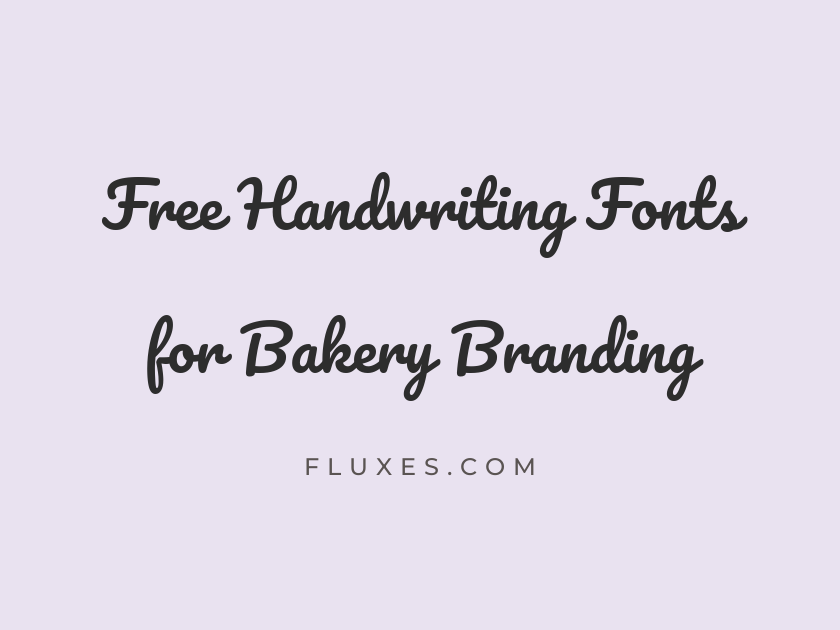
65 Best Free Handwriting Fonts for Bakery Branding
Handwriting fonts are the backbone of bakery branding because they carry the warmth of something made by hand, the same warmth you want a customer to feel before they even taste a croissant. A good script or marker-style typeface can turn a simple logo into something that feels like it was written on a chalkboard by the baker herself, and a well-chosen handwritten face on packaging, menus, or a shop sign signals fresh, small-batch, and personal rather than mass-produced. The options below cover everything from elegant calligraphy suited to a patisserie window to loose, playful lettering perfect for a doughnut shop, and every one of them is free to download on Google Fonts.
1. Pacifico
Pacifico is the font most people picture when they think “bakery logo,” and for good reason: its round, bouncy curves feel friendly without tipping into childish. It reads beautifully at large sizes on a storefront sign, though it can blur at very small text, so save it for headlines and logotypes rather than ingredient lists.
2. Sacramento
Thin, looping, and unmistakably feminine, Sacramento suits a patisserie or cupcake shop that wants an air of refinement rather than rustic charm. Its light strokes photograph well on pale pink packaging and gold foil labels.
3. Dancing Script
Few free scripts pair as easily with a sans-serif body font as Dancing Script does, which is why it shows up constantly on menus and cake boxes. The bold weight adds enough presence for a logo lockup, while the regular weight stays graceful in a tagline underneath it.
4. Great Vibes
This single-weight calligraphic script leans formal and romantic, making it a natural fit for a bakery that specializes in wedding cakes or bespoke celebration desserts. Keep it for short phrases only, since its connected flourishes get hard to read in long sentences.
5. Alex Brush
Alex Brush has the confident, slightly uneven quality of real brush calligraphy, as if someone signed the bakery name with a wet brush in one motion. It works especially well in gold or dark brown ink against a cream background.
6. Allura
Allura is tighter and more upright than most brush scripts, giving it a tidy, almost formal elegance. It suits a bakery brand built around wedding and event cakes more than a casual corner bake shop.
7. Parisienne
There is a distinctly Parisian, old-world softness to this script, which makes it an obvious choice for a bakery leaning into French pastry, croissants, or macarons. Its rounded letterforms stay legible even at moderate sizes, unlike some thinner calligraphic fonts.
8. Satisfy
Casual and a bit retro, Satisfy sits comfortably between a handwritten note and a marker script. It works nicely on chalkboard-style menu boards or coffee cup sleeves.
9. Cookie
The name alone makes this one hard to resist for a cookie shop or dessert counter. Cookie has thick, confident strokes and generous curves that stay readable even in signage-sized applications, which is not something every script font can claim.
10. Kaushan Script
Kaushan Script has energy to spare, with strokes that swing and swell like it was written quickly and joyfully. It suits a bakery brand that wants to feel lively and a little irreverent rather than precious.
11. Courgette
Courgette is compact and a touch quirky, with letters that lean and bounce rather than flow in one continuous line. It reads well in short product names and works nicely alongside a simple sans-serif for body copy.
12. Lobster Two
Lobster Two softens the original Lobster’s chunky retro curves into something a bit friendlier and more legible at small sizes. It has become a go-to for food branding generally, so pair it with distinctive colors or illustration to keep a bakery’s identity from feeling generic.
13. Yellowtail
Yellowtail has a jaunty, mid-century diner quality that suits a bakery selling pies, milkshakes, or old-fashioned doughnuts. Its bold weight holds up well on packaging and takeout bags.
14. Marck Script
Marck Script mimics genuine cursive handwriting rather than formal calligraphy, giving it an approachable, personal feel, as though the baker jotted the shop name on a card. It suits labels and price tags better than large logo work.
15. Bad Script
Despite the name, there is nothing wrong with this font; it simply reads as loose, casual, ballpoint-pen handwriting rather than polished calligraphy. That rawness is an asset for a bakery brand built on a homemade, unpretentious story.
Limit yourself to one or two handwriting fonts per brand. Mixing several scripts together tends to read as cluttered rather than handmade.
Any of these free Google Fonts can carry the warmth and craft that bakery branding depends on, whether the goal is a rustic sourdough shop, a polished patisserie, or a playful neighborhood cupcake counter. Download a few, test them against your logo mark and packaging colors, and let the one that feels most like your own bakery’s voice lead the way.